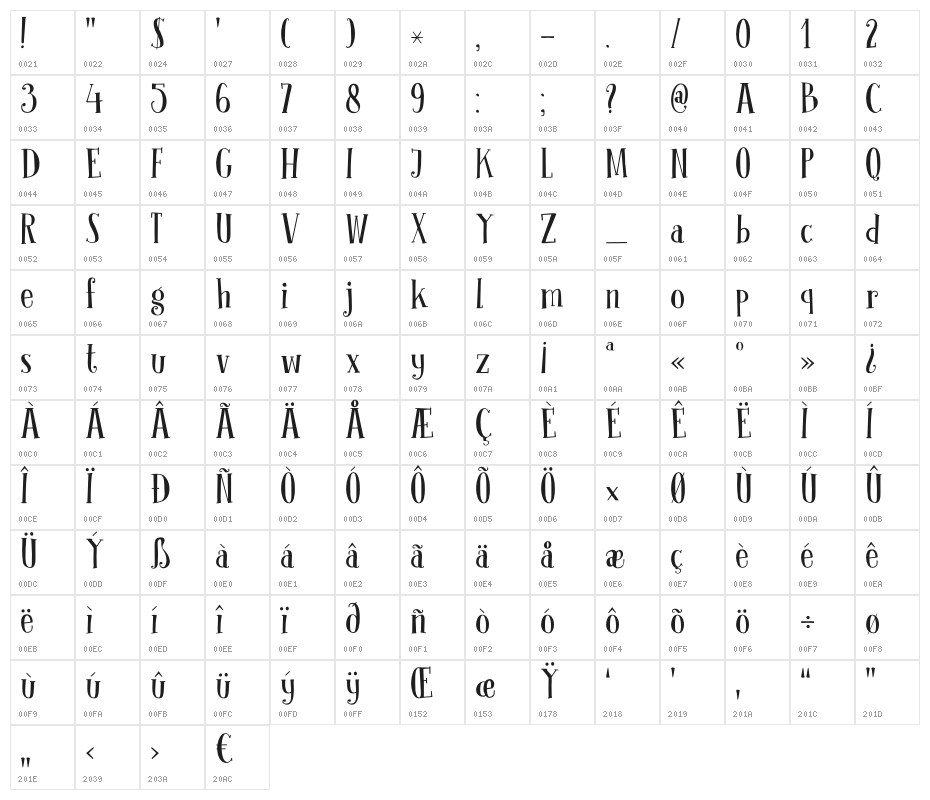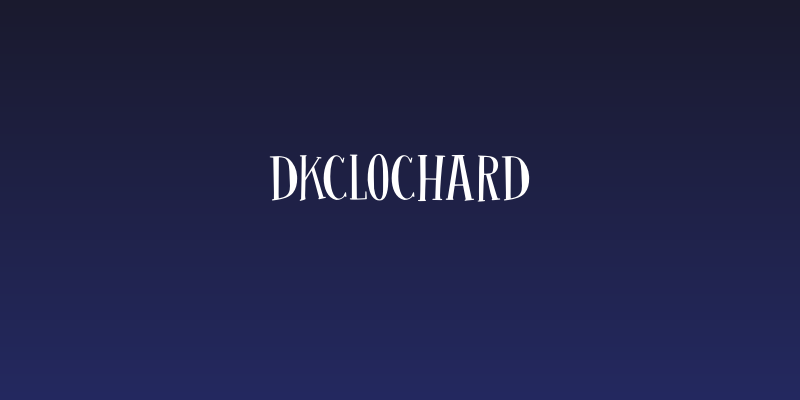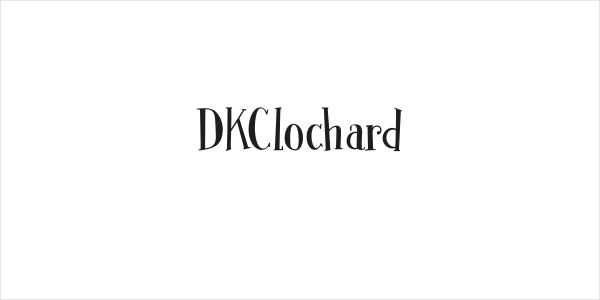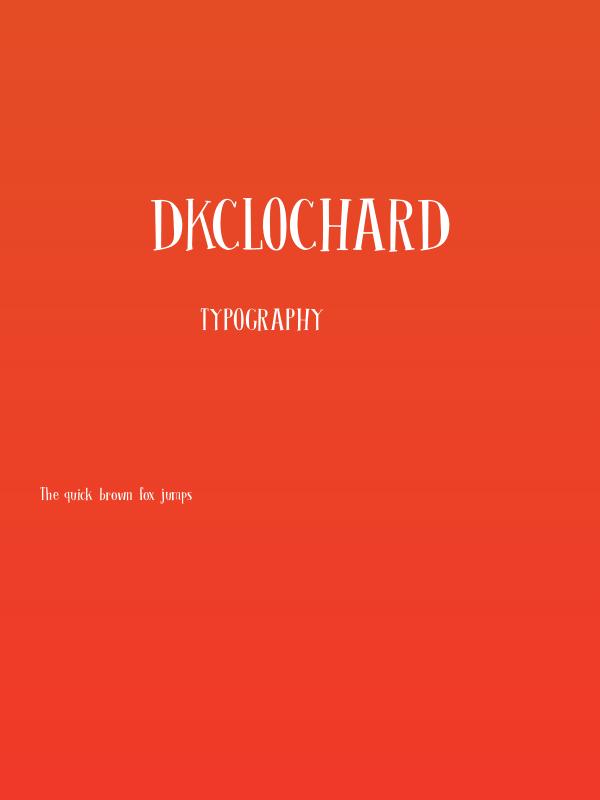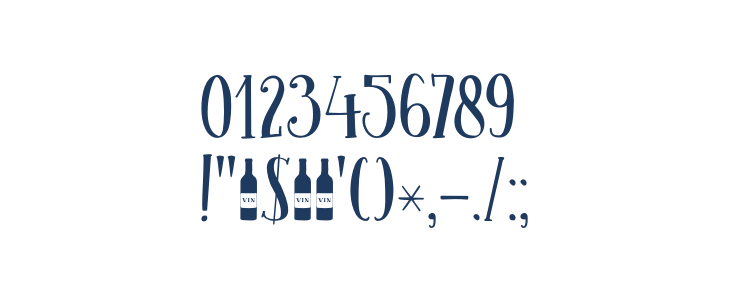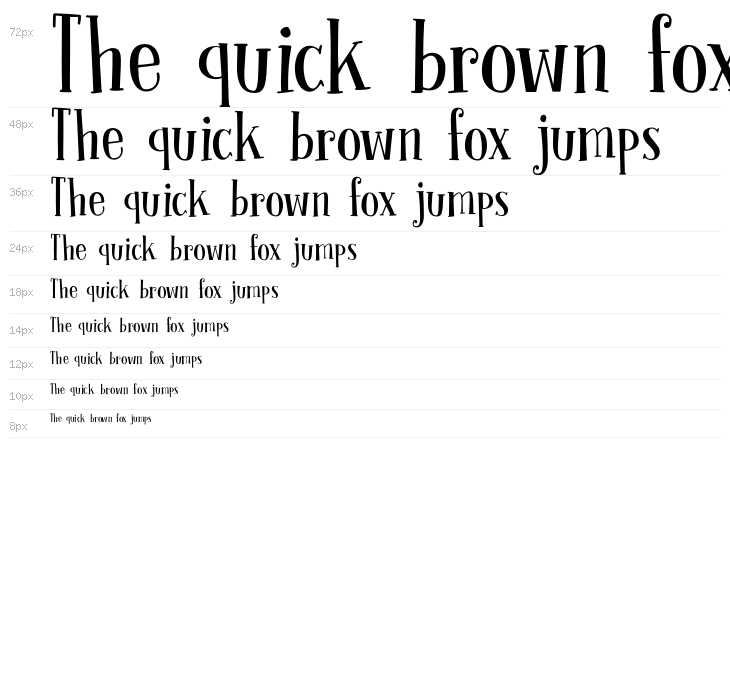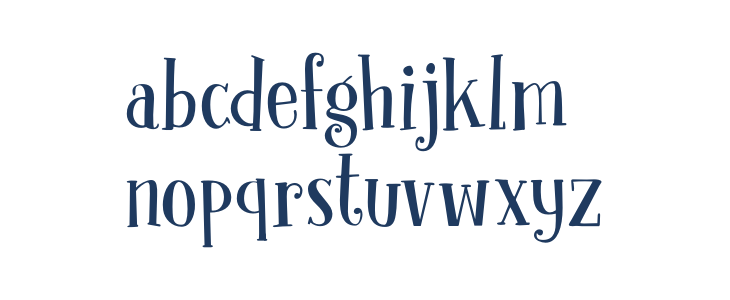
DKClochard Font
DKClochard Description
This font exhibits a playful and whimsical style, characterized by its uneven stroke widths and slightly irregular letterforms. The uppercase letters are tall and slender, with a slight tilt that adds a dynamic feel. The lowercase letters maintain a consistent style, with some characters featuring unique flourishes that enhance the font's quirky personality. Numbers are bold and clear, ensuring readability. Special characters are creatively designed, maintaining the overall playful aesthetic. This font is ideal for projects that require a fun and informal touch.
| Overall Style | Whimsical |
| Proposed Projects | Ideal for children's books, playful branding, greeting cards, and creative posters. |